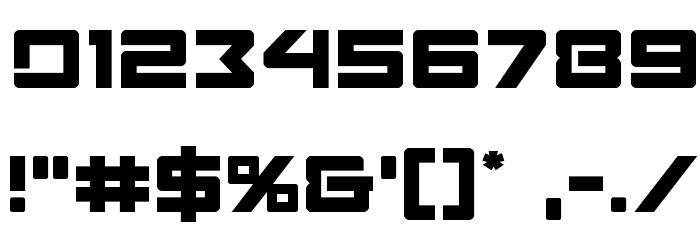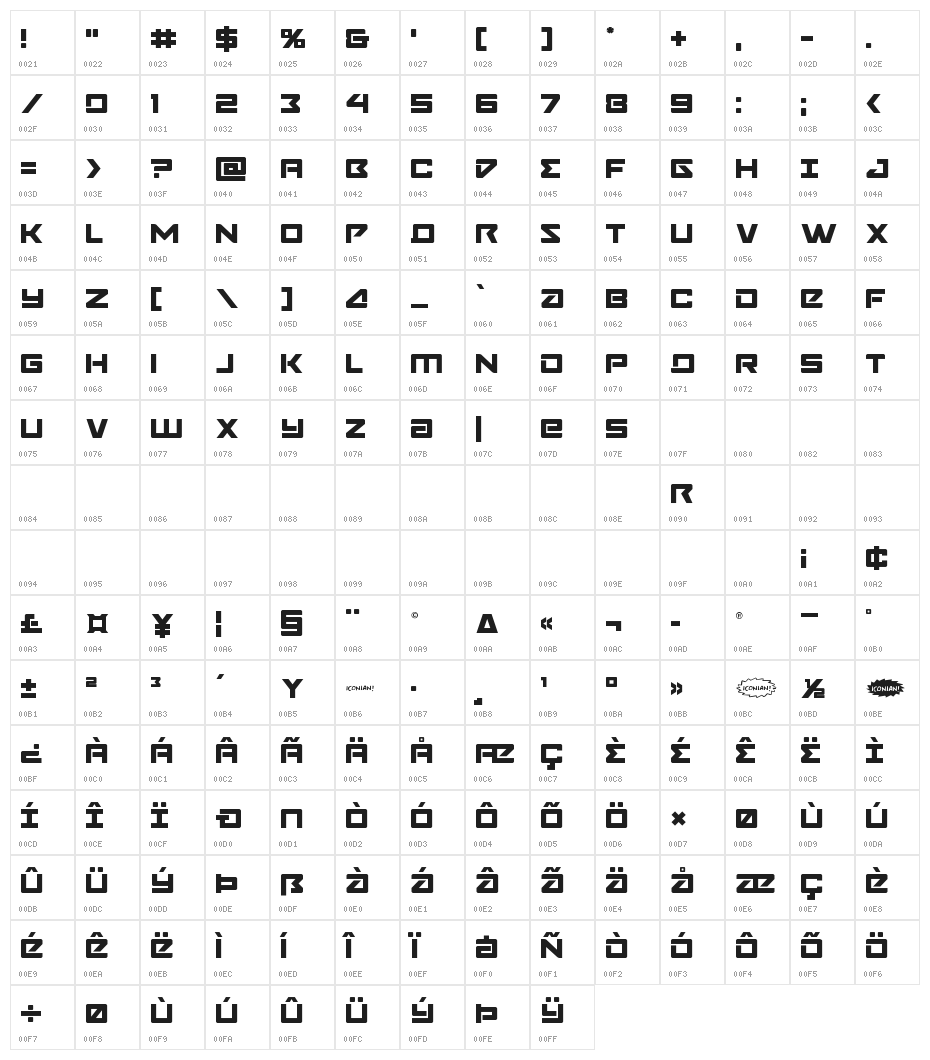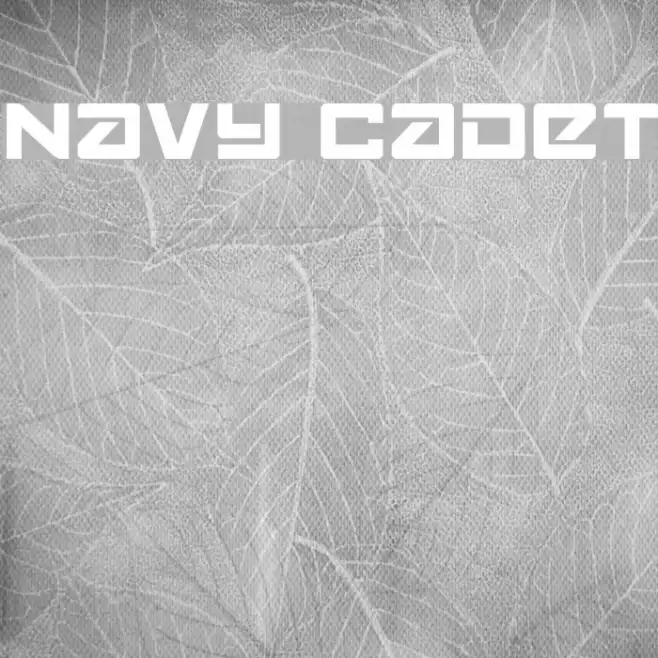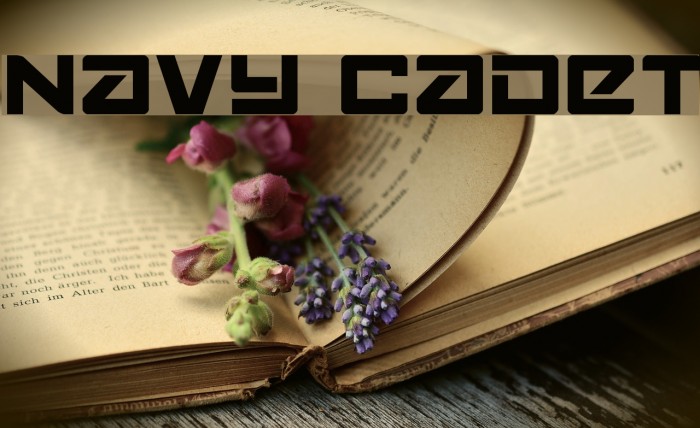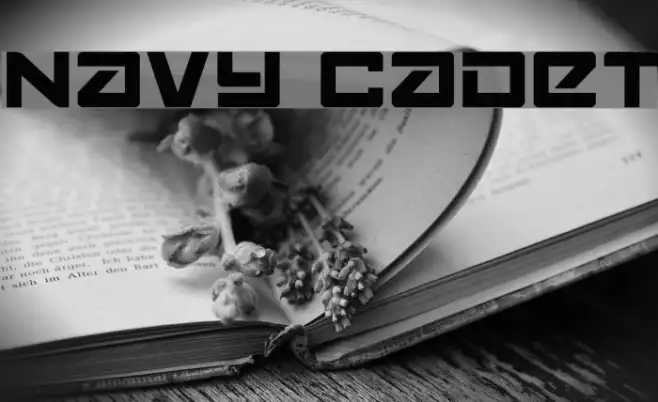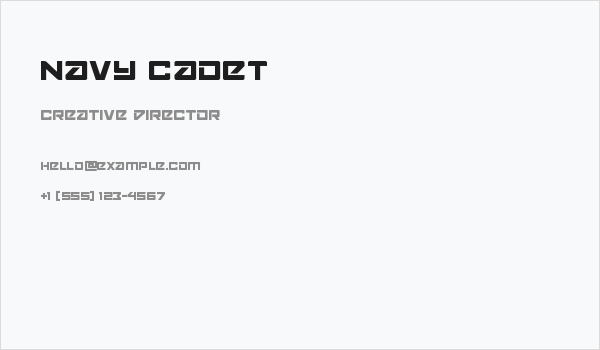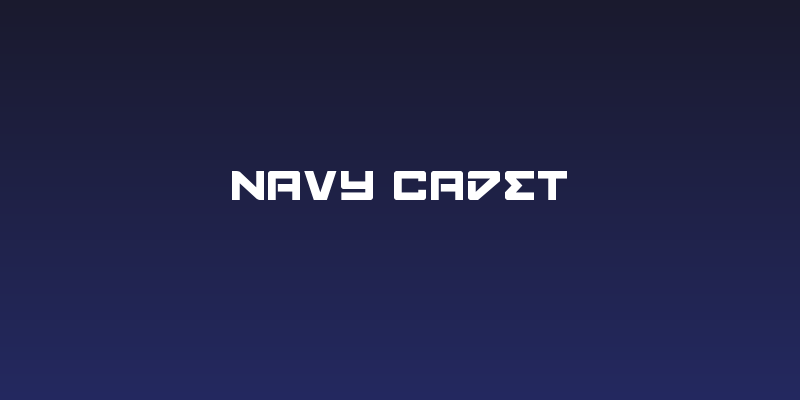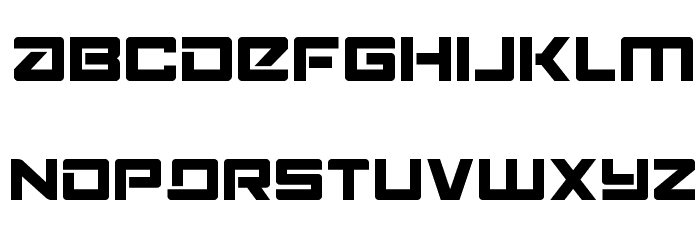
Navy Cadet Font
Navy Cadet Description
This font features a bold, geometric design with a futuristic and industrial feel. The characters are constructed with sharp angles and straight lines, giving them a strong, assertive presence. The uppercase and lowercase letters maintain a consistent style, with a uniform height and width that enhances readability. The numbers and special characters are designed to match the overall aesthetic, ensuring a cohesive look across all text elements. This font's unique style makes it ideal for projects that require a modern and edgy appearance.
| Proposed Projects | Ideal for branding, posters, video game graphics, and tech-related projects. |